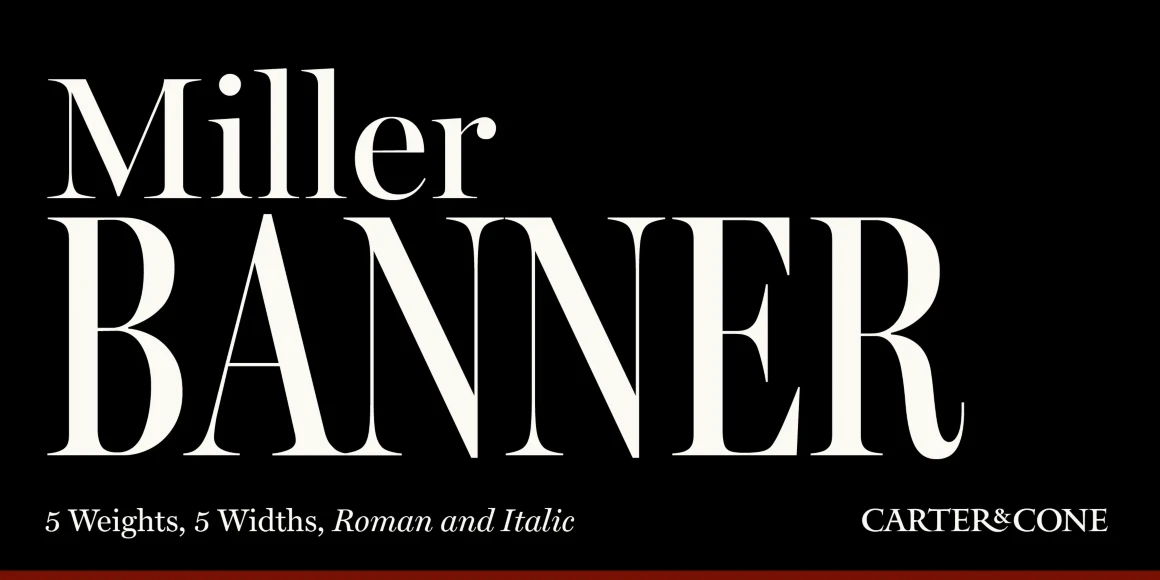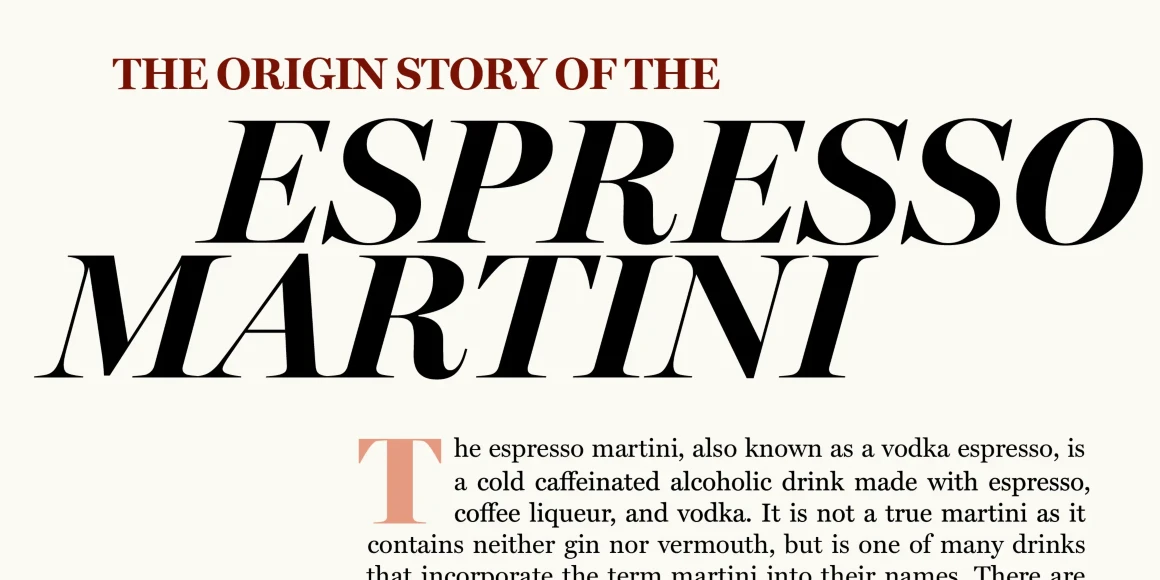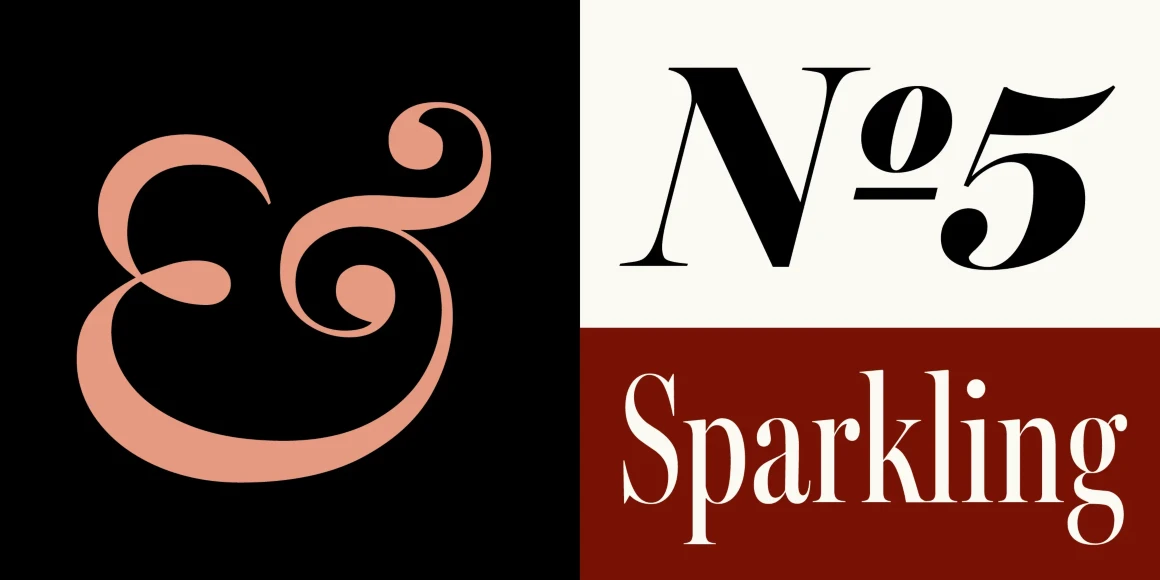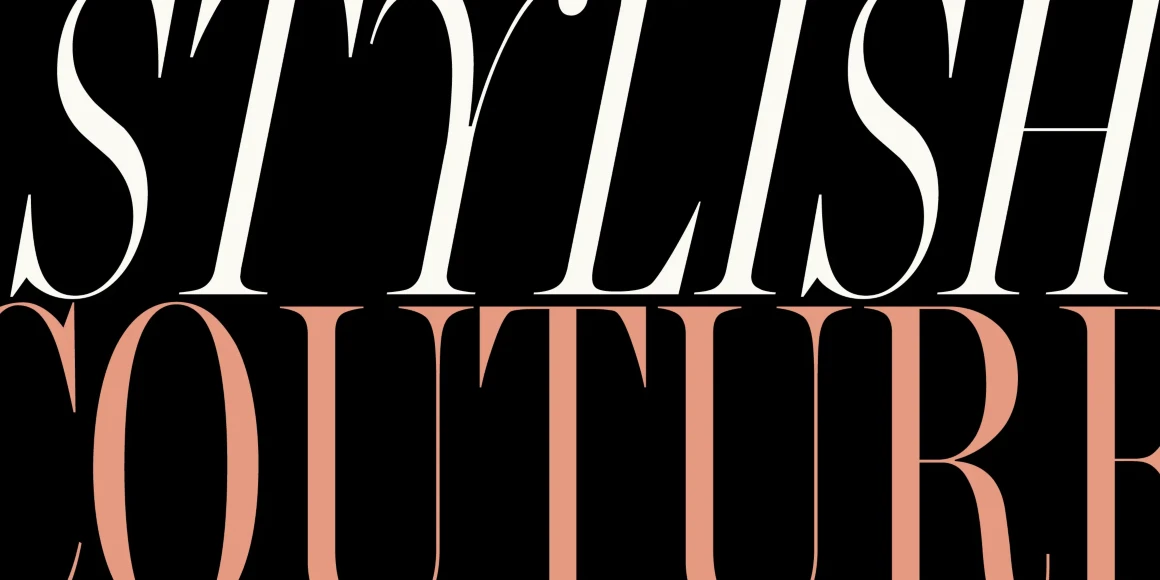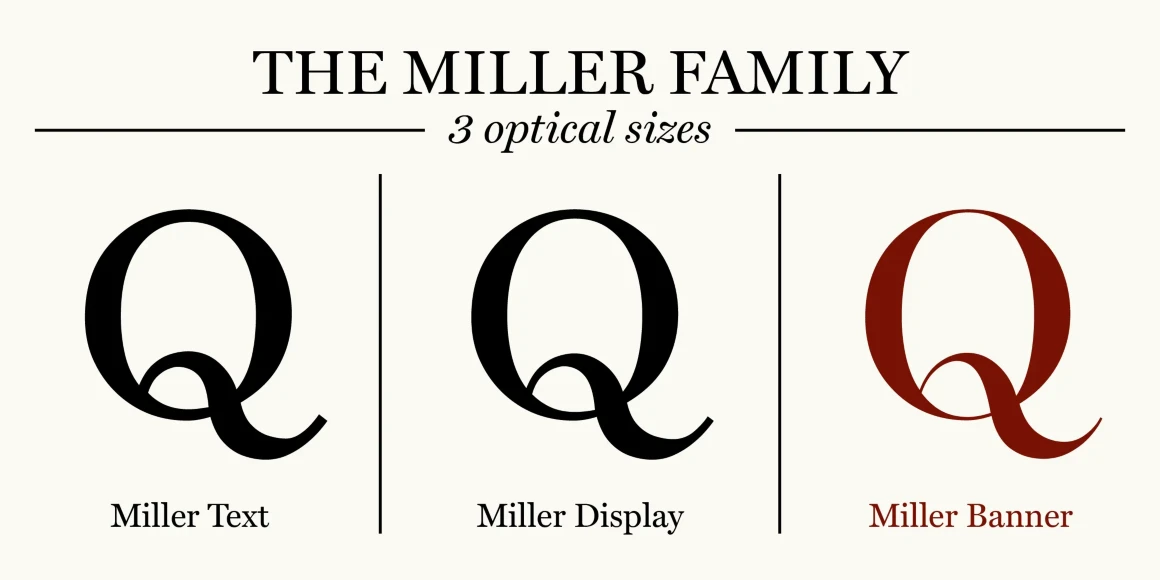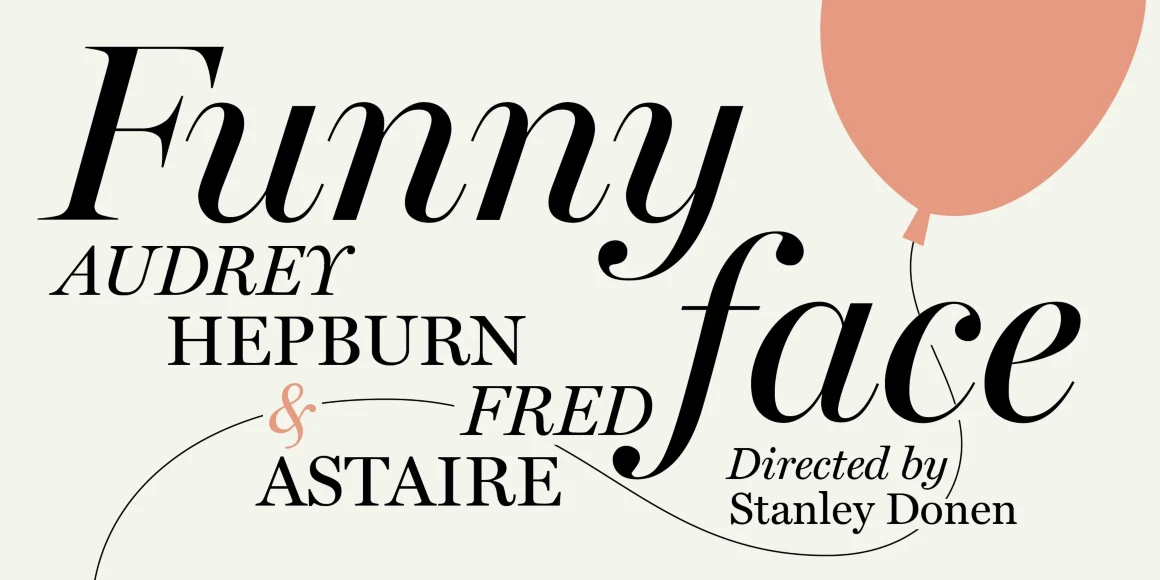
Miller Banner
From Carter & Cone
Miller Banner, the most dramatic curves within the Miller family, takes the series to new heights: 100 points and up! Matthew Carter optimized its extreme settings: hairlines sharpened, contrast sweetened, lending grace and gravitas to editorial headlines and fashion brands. Richard Lipton and Jill Pichotta of The Type Founders contributed in the expansion to give the family full range. Available in 5 widths and 5 weights, plus italics, Miller Banner has 50 styles for typographic trendsetting!
Designed by Matthew Carter, Richard Lipton & Jill Pichotta